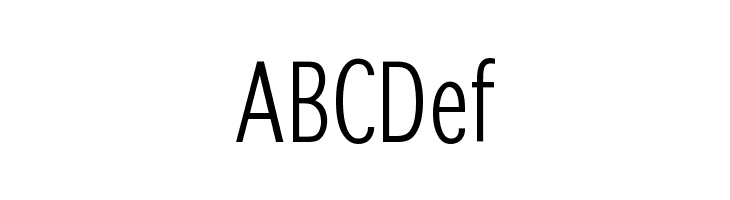
Orchestra Icons Font
- Font: Orchestra Icons
( Fonts by Derek Gomez )
A modern, clean sans-serif typeface with consistent stroke width and slightly condensed characters.